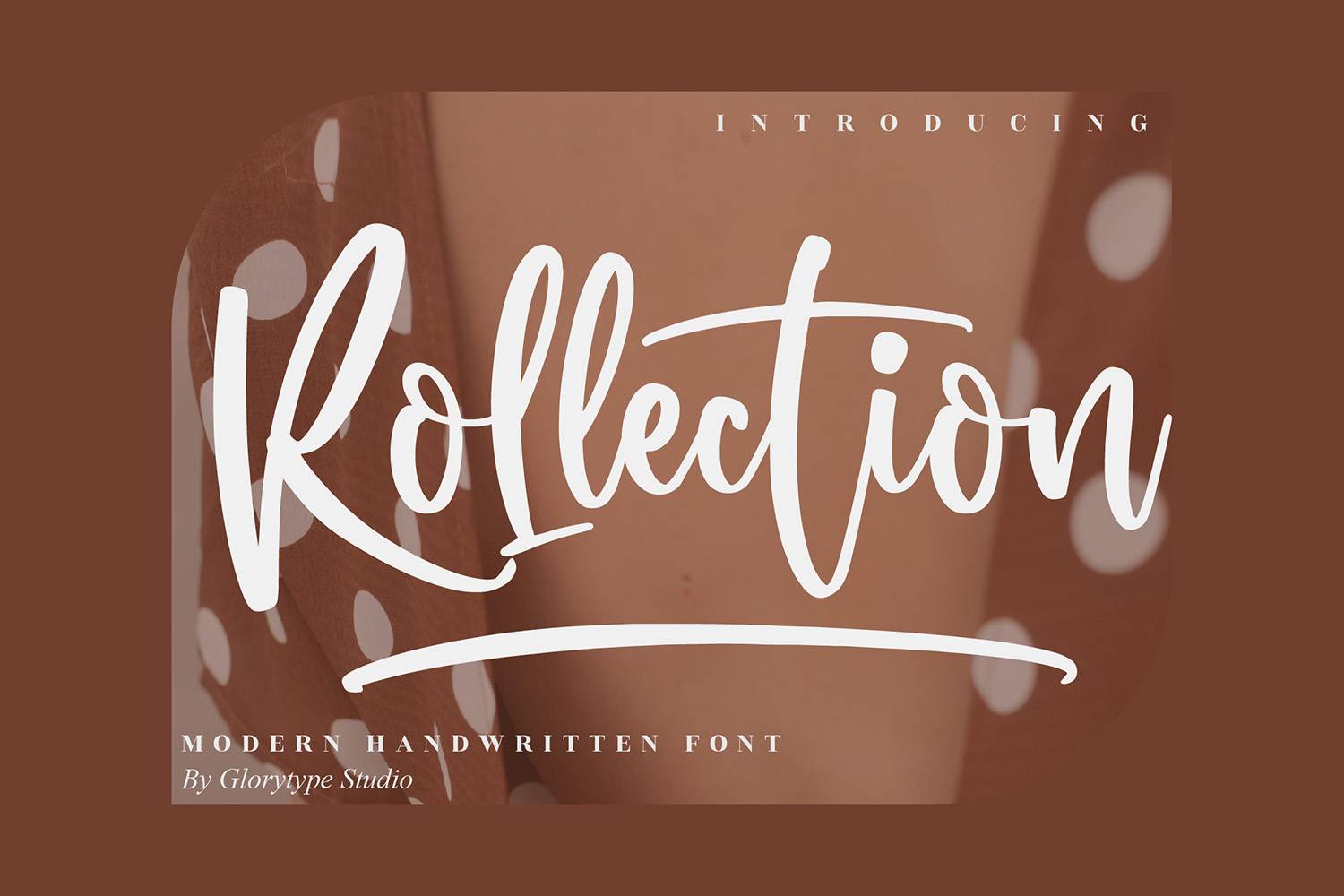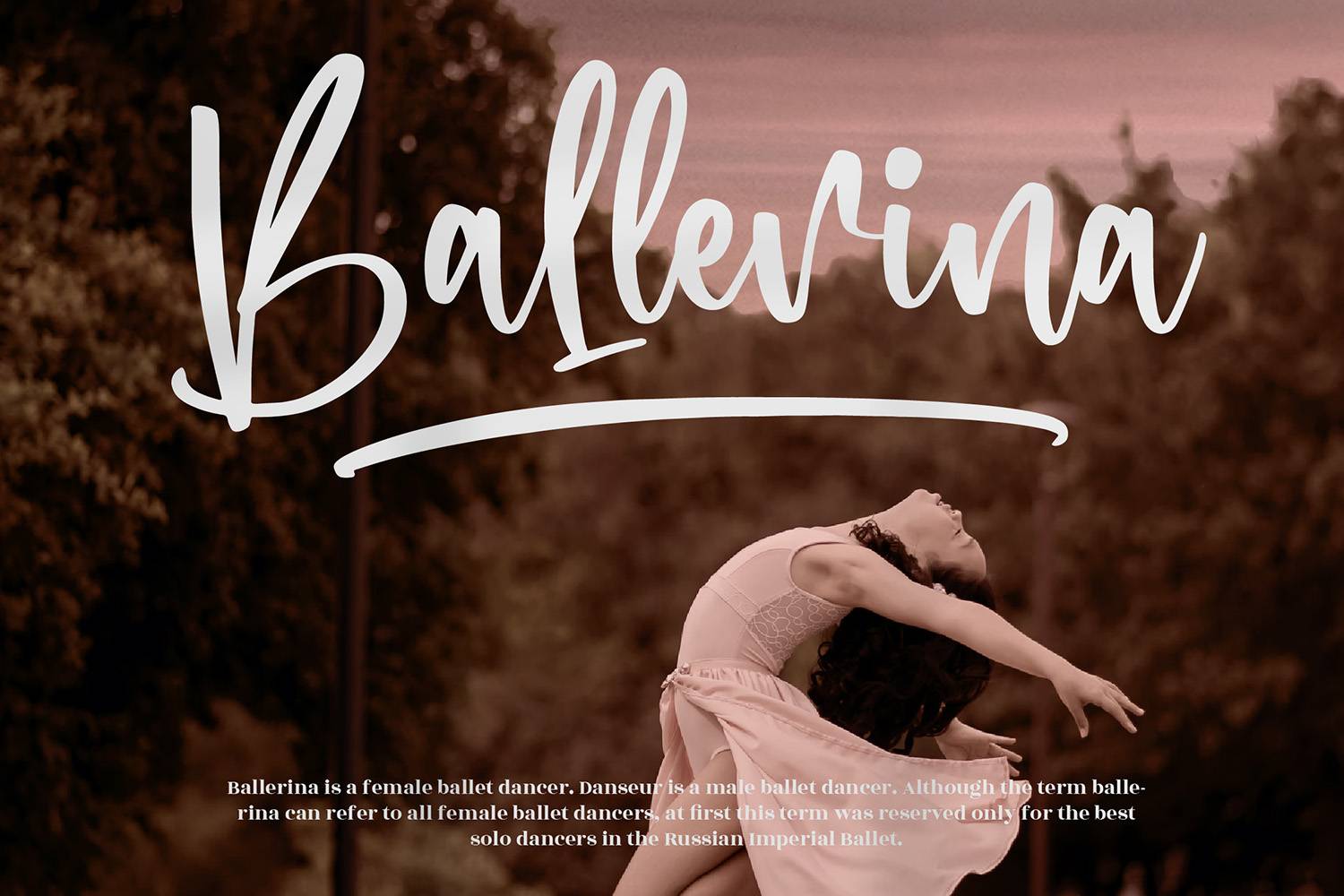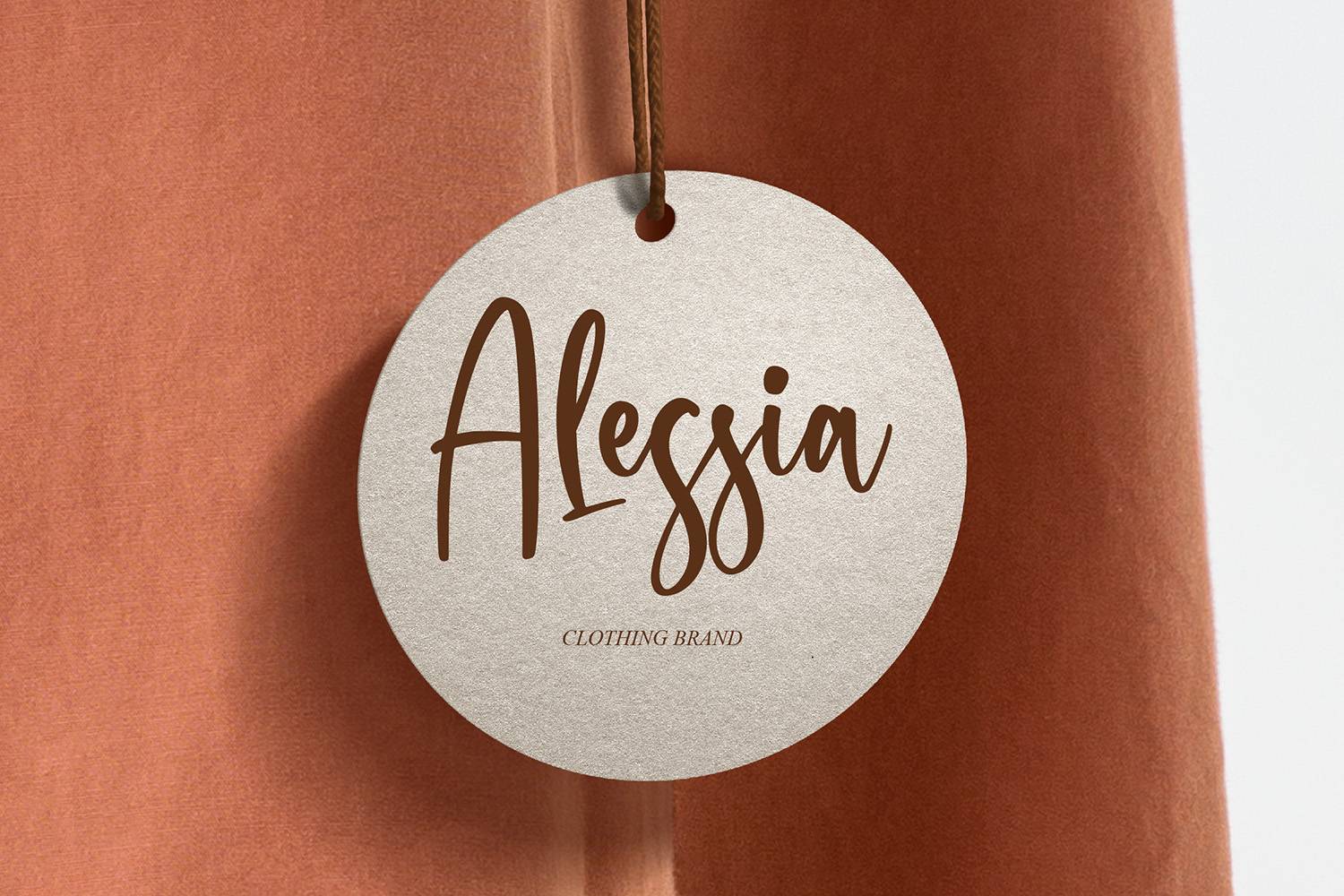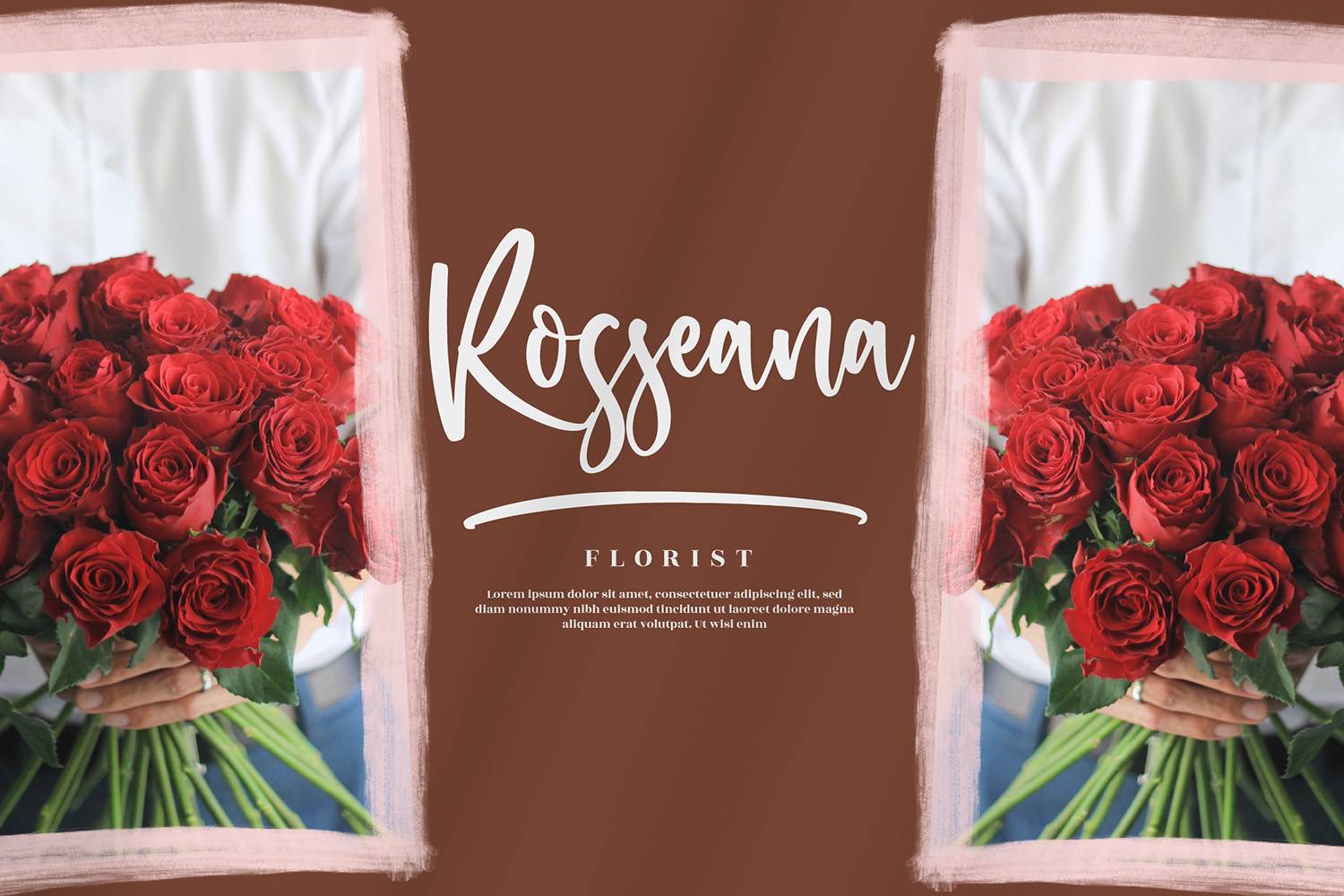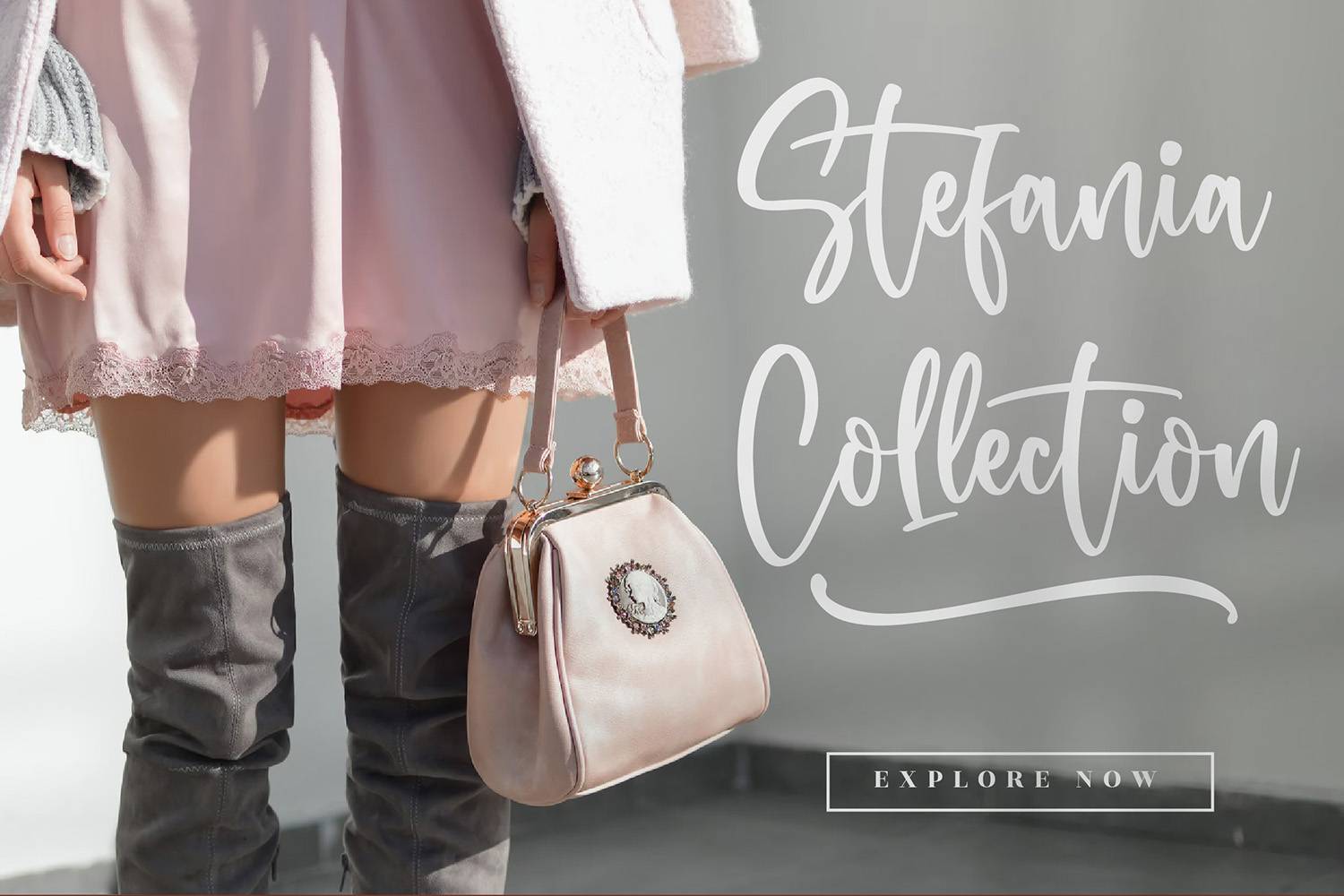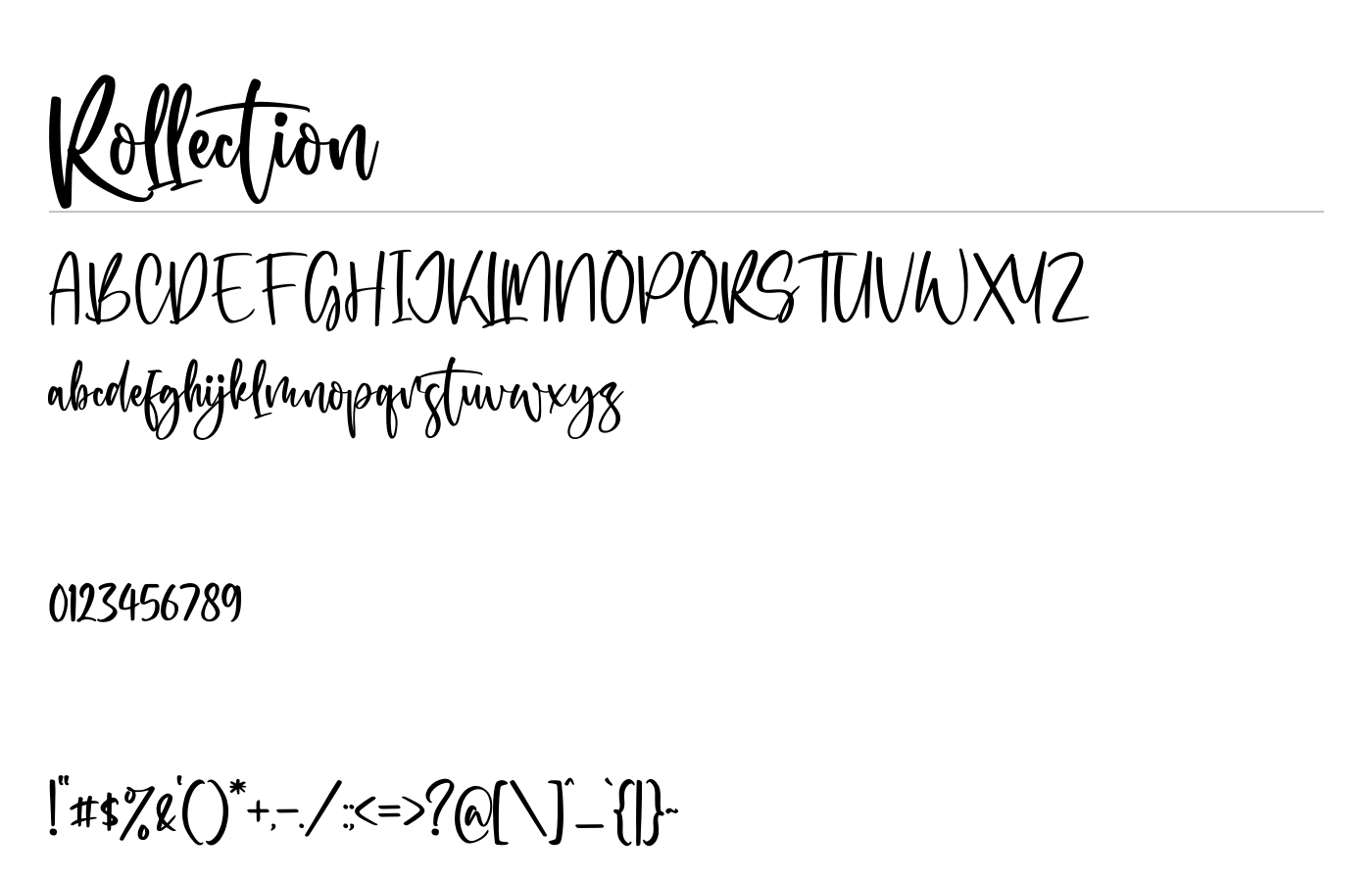
Rollection is a lively and modern script font with a handwritten feel that combines playful uppercase letters with fluid, elegant lowercase glyphs, creating a stylish contrast. Its tall, narrow letterforms and smooth stroke transitions make it perfect for adding a personal, creative touch to branding, invitations, and editorial designs where a friendly yet refined personality is desired. This font works beautifully in projects seeking a contemporary and approachable look with a hint of sophistication.
Rollection Font
About Rollection Font